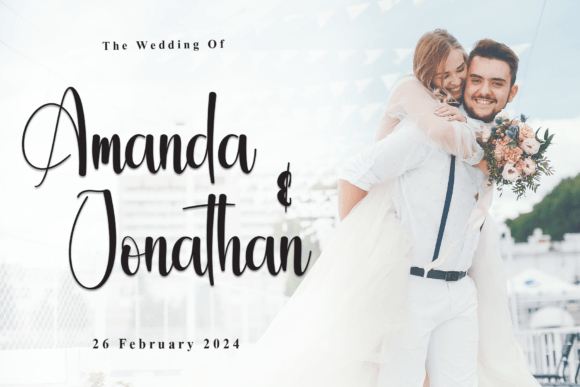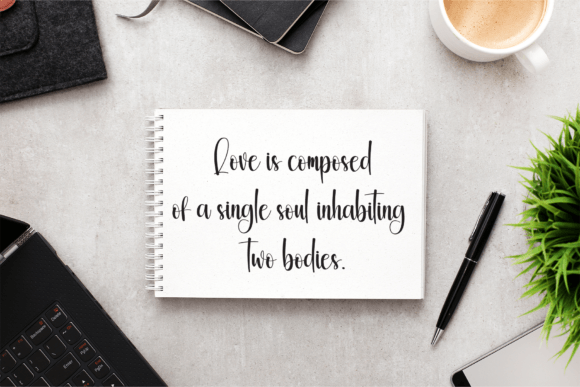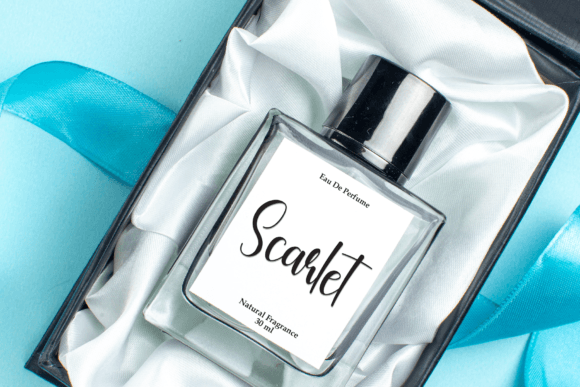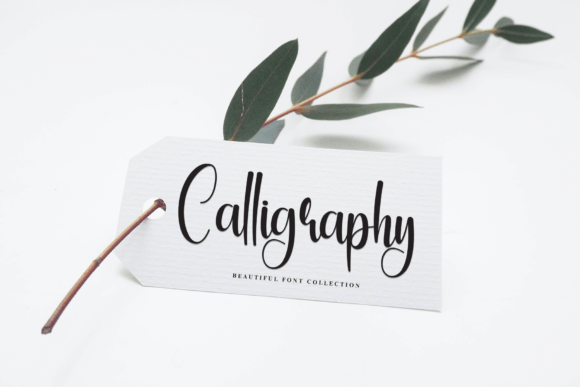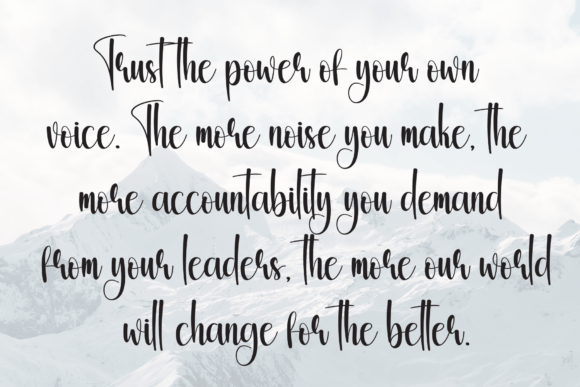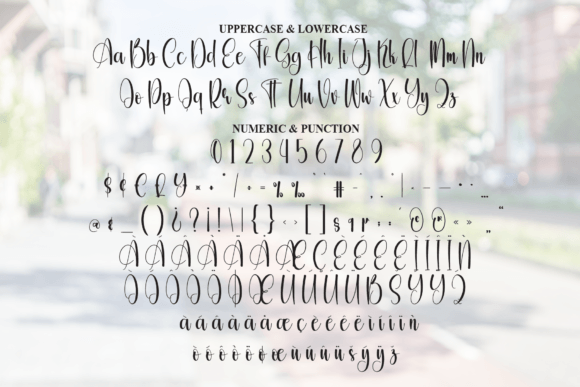
Introducing Amsterdam Font: Elevate Your Designs with Expressive Elegance
Are you tired of using the same old fonts in your designs? Look no further than Amsterdam Font, a stylish handwritten font that brings a touch of modernity and artistic flair to your projects. With its confident strokes and dynamic letterforms, Amsterdam is the perfect choice for designers and crafters seeking a bold and contemporary handwritten aesthetic.
The Beauty of Brush Lettering
Amsterdam Font is inspired by the expressive beauty of brush lettering, a style that has been popularized by artists and designers around the world. Brush lettering is all about creating unique and dynamic letterforms that convey a sense of movement and energy. With Amsterdam Font, you can achieve this same level of expressiveness and elegance in your designs.
Key Features of Amsterdam Font
- Confident Strokes: Amsterdam Font features confident strokes that give your designs a sense of boldness and modernity.
- Dynamic Letterforms: The font’s dynamic letterforms add a touch of artistic flair to your designs, making them stand out from the crowd.
- Handwritten Aesthetic: Amsterdam Font has a beautiful handwritten aesthetic that is perfect for projects that require a personal touch.
- Versatile: The font is versatile and can be used for a wide range of projects, from branding and advertising to packaging and digital design.
Why Choose Amsterdam Font?
So why choose Amsterdam Font over other fonts on the market? Here are just a few reasons:
- Unique Style: Amsterdam Font has a unique style that sets it apart from other fonts on the market.
- High-Quality: Amsterdam Font is a high-quality font that is designed to produce crisp and clear results, even at small sizes.
Using Amsterdam Font in Your Designs
- Use it for Headings: Amsterdam Font is perfect for headings and titles, where its bold and confident strokes can really make an impact.
- Pair it with Other Fonts: The font pairs well with other fonts, making it easy to create a cohesive look for your designs.
- Experiment with Colors: Amsterdam Font looks great in a wide range of colors, so don’t be afraid to experiment and find the perfect color for your design.
Amsterdam Font is perfect for designers and crafters who are looking for a unique and expressive font to add to their toolkit. Whether you’re working on a branding project, creating a new product line, or just want to add a personal touch to your designs, Amsterdam Font is the perfect choice.